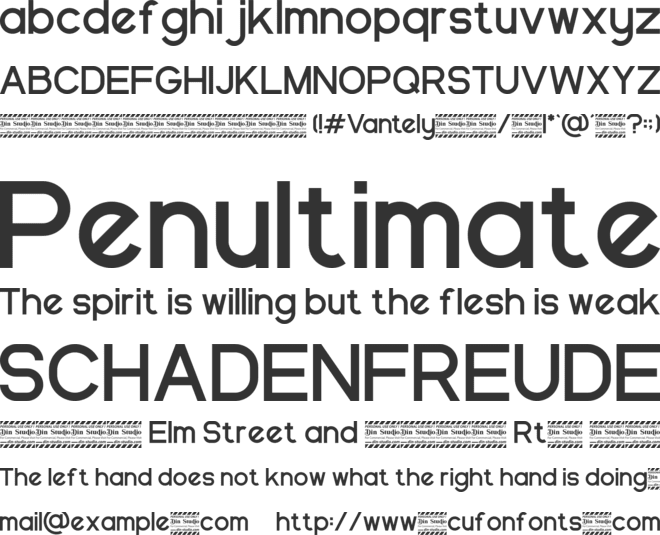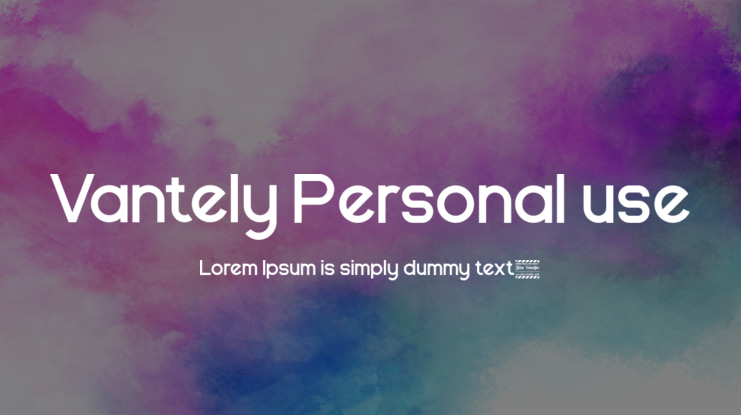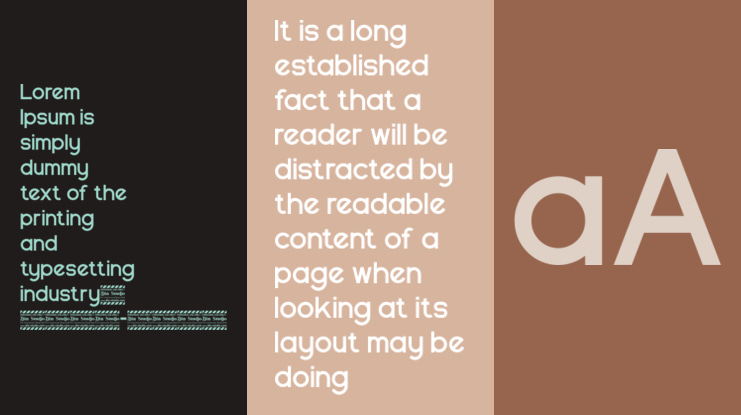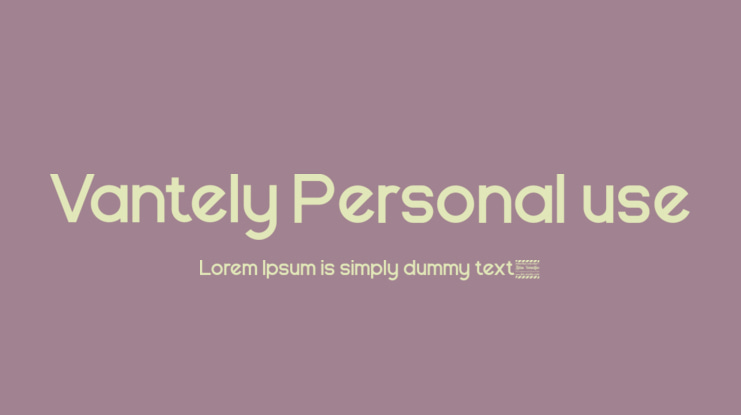
Vantely is a modern sans serif font. Made for any professional project branding. It is perfect for printing, branding and quotes. Every letter has a unique and beautiful touch.